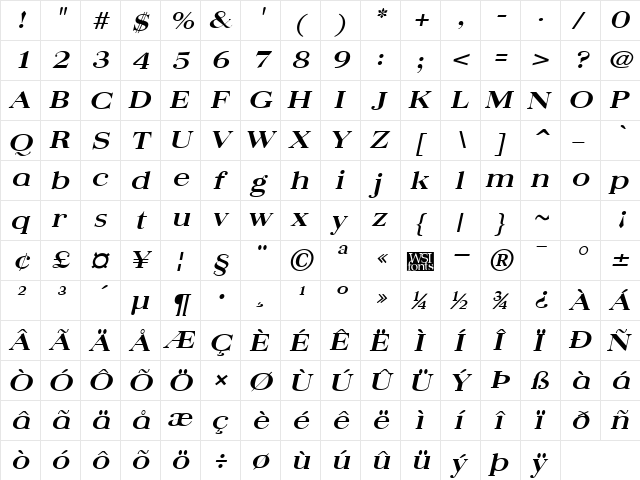
QuantasBroad Bold Italic
Design Context for QuantasBroad Typeface
QuantasBroad is a composed and adaptable typeface that performs quietly and consistently across a wide range of design contexts. The dynamic lean of this cut emphasises speed and emphasis in any layout. Its bold stroke weight gives it real presence on the page.